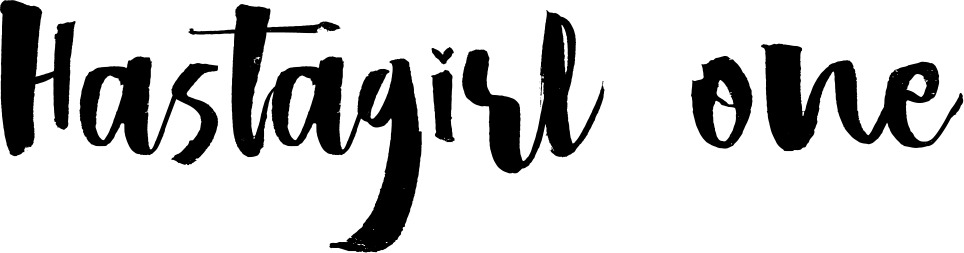
Hastagirl One Font
As Hastagirl One involves an elaborate touch of art and style, it’s also one of those fonts that work wonders when you want to come across as contemporary and one-of-a-kind. This all-lowercase font includes no digit or punctuation, but supports only an “H”, leaving out the rest of its capital companions.
Retaining such a gorgeous structure, this handwriting watercolor font is guilty of being suitable for different projects such as watermarks, logotypes, printed texts, quotes, and so on. Cool, right?
Fashion is an instant language, when we talk about the graphic design, let’s just say that fonts are the fashion of it. It’s like an outfits and audience magnet of it. So that’s what we came for, Please welcome, Hastagirl!, the fresh auto-chic and stylish attitude for your display look. Multiply the chicness of your design and show the world how special you are. Perfectly fit for your fashion branding, social media post, logo, handwritten quotes, packaging design, and everytime you need a stylish fonts to strike a pose.